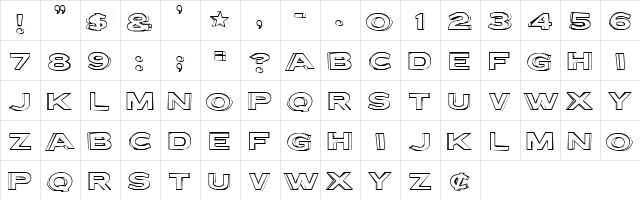
Letter Set B Regular Free Font
Letter Set B Regular
Foundry: Larabie Fonts
Letter Set B Family
Letter Set B Regular
Design Context for Letter Set B
Letter Set B is a composed and adaptable typeface that performs quietly and consistently across a wide range of design contexts.